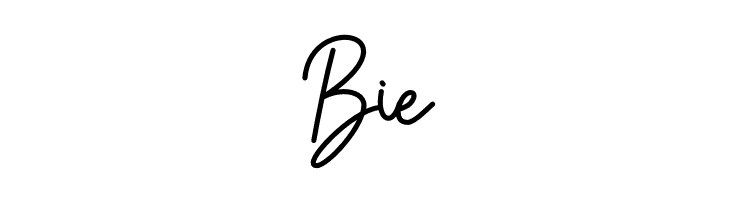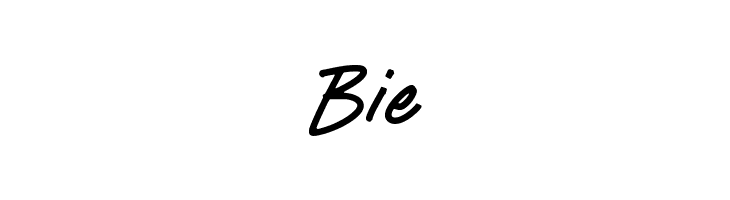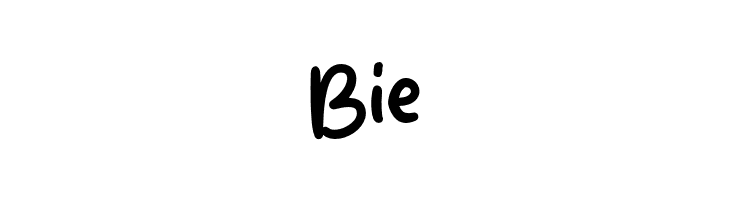
Modern, playful handwritten script with decorative swashes.
A relaxed, handwritten script with a natural, flowing style.
A relaxed, handwritten script with a friendly and informal style.
Handwritten, bold, italic script with a playful and elegant style.
Light, whimsical handwritten script with tall, airy letterforms.
Light, whimsical handwritten script with a pronounced italic slant.
Elegant, handwritten cursive script with a whimsical, airy style.
Casual handwritten font with rounded, playful strokes.
A whimsical, handwritten script with tall, narrow, and playful strokes.
Casual, handwritten script with tall, narrow, and flowing strokes.